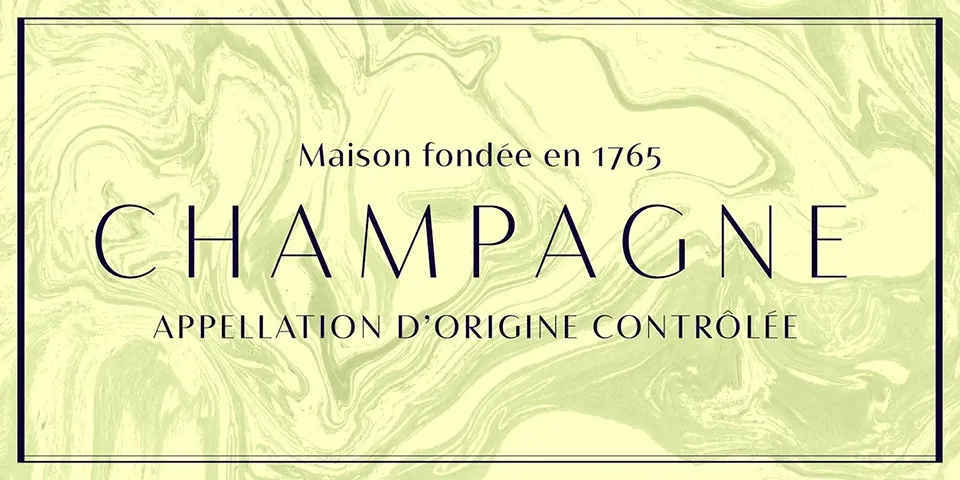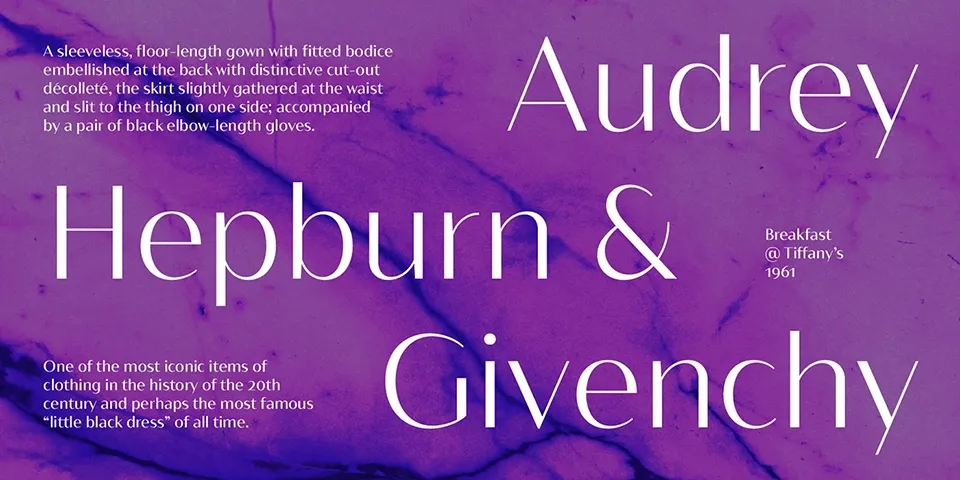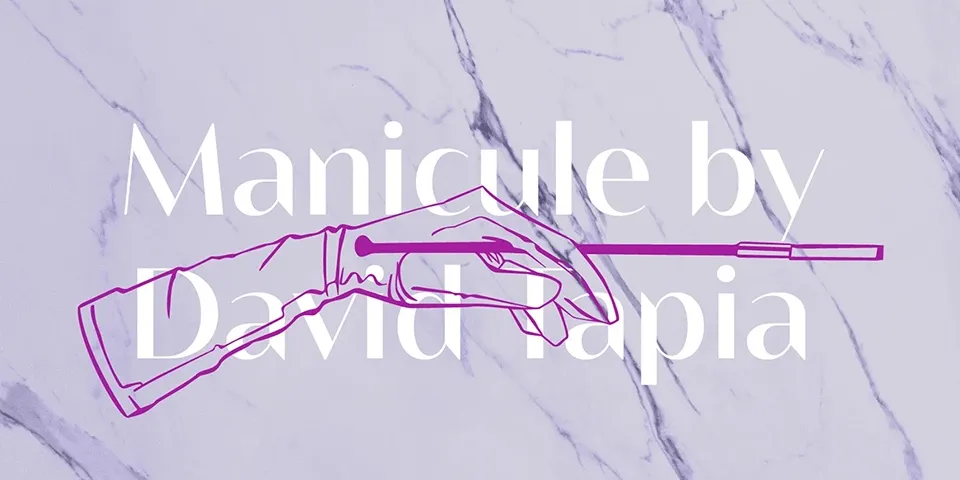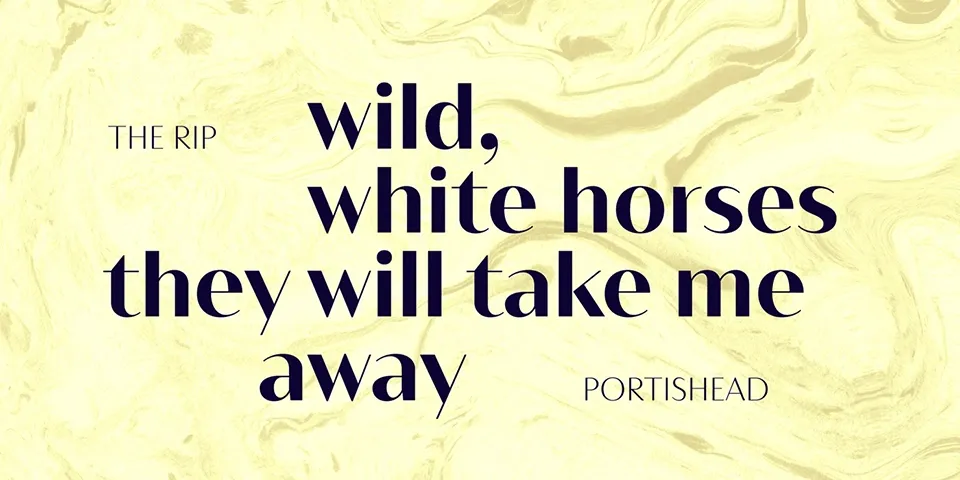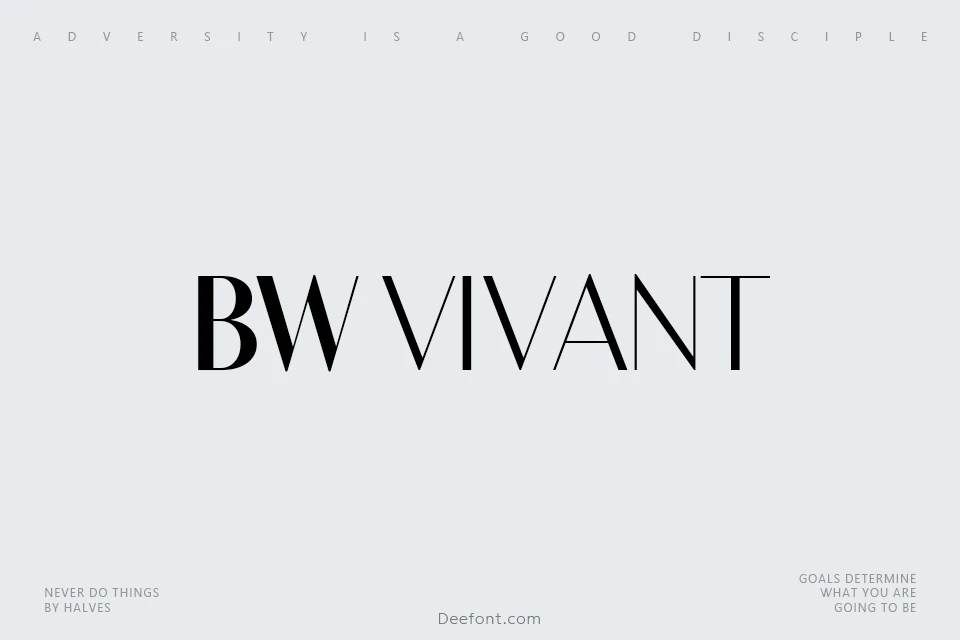
Bw Vivant Font Family
Bw Vivant Font Family is a glamorous sans serif font family that blends the visual appeal of deeply modulated serif typefaces with a minimal geometric approach, discarding any accessory elements in pursuit of the cleanest shapes. The result is a high-contrast sans serif exuding elegance and glamour, with subtle art-deco and classic cues that feel contemporary. Available in 7 weights with consistent “thins,” Bw Vivant Font Family supports all European Latin languages and includes OpenType features such as discretionary ligatures, stylistic sets, old style figures, and case sensitive forms.